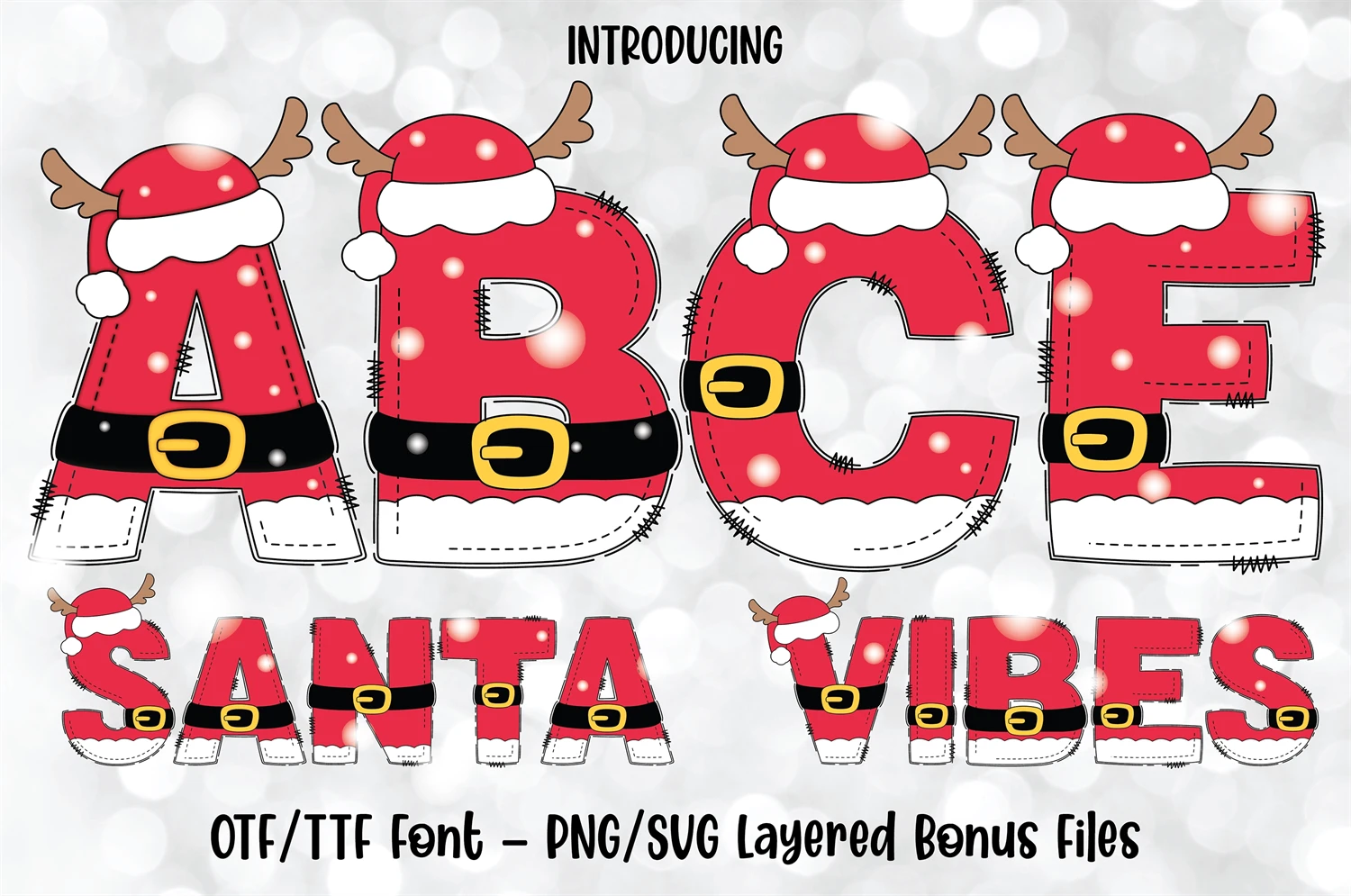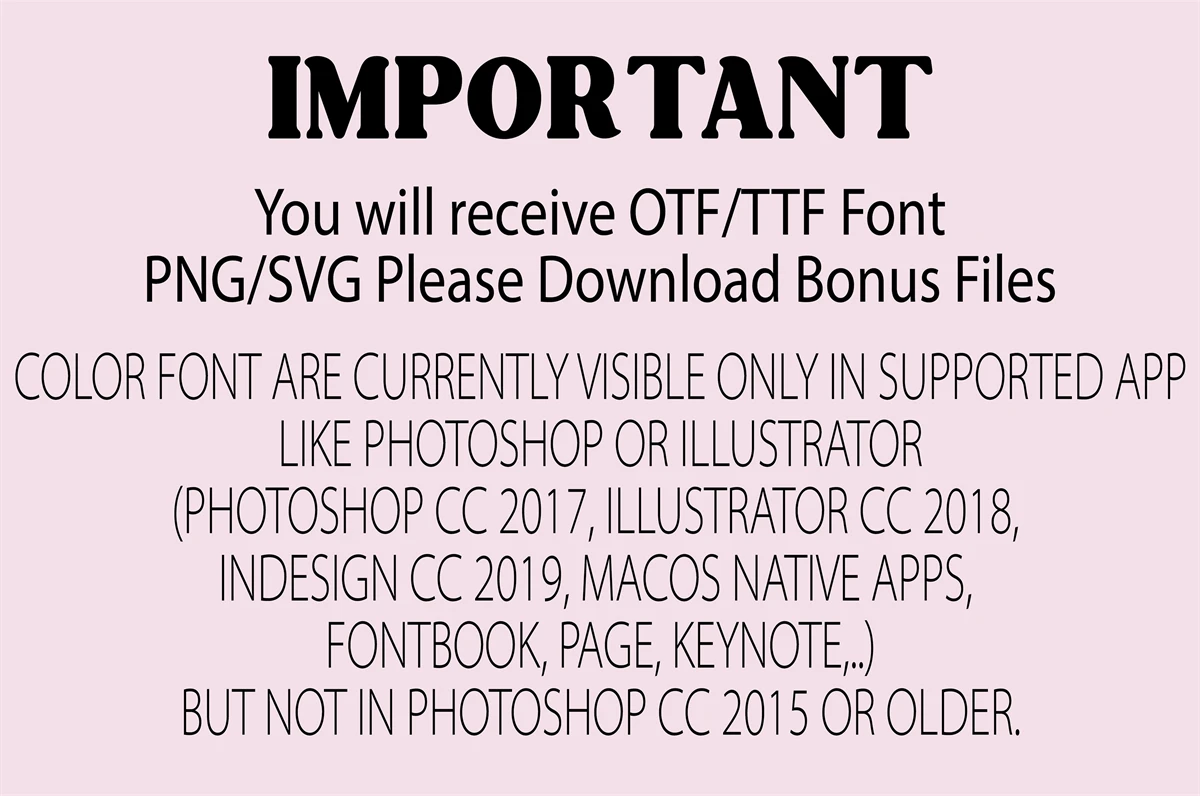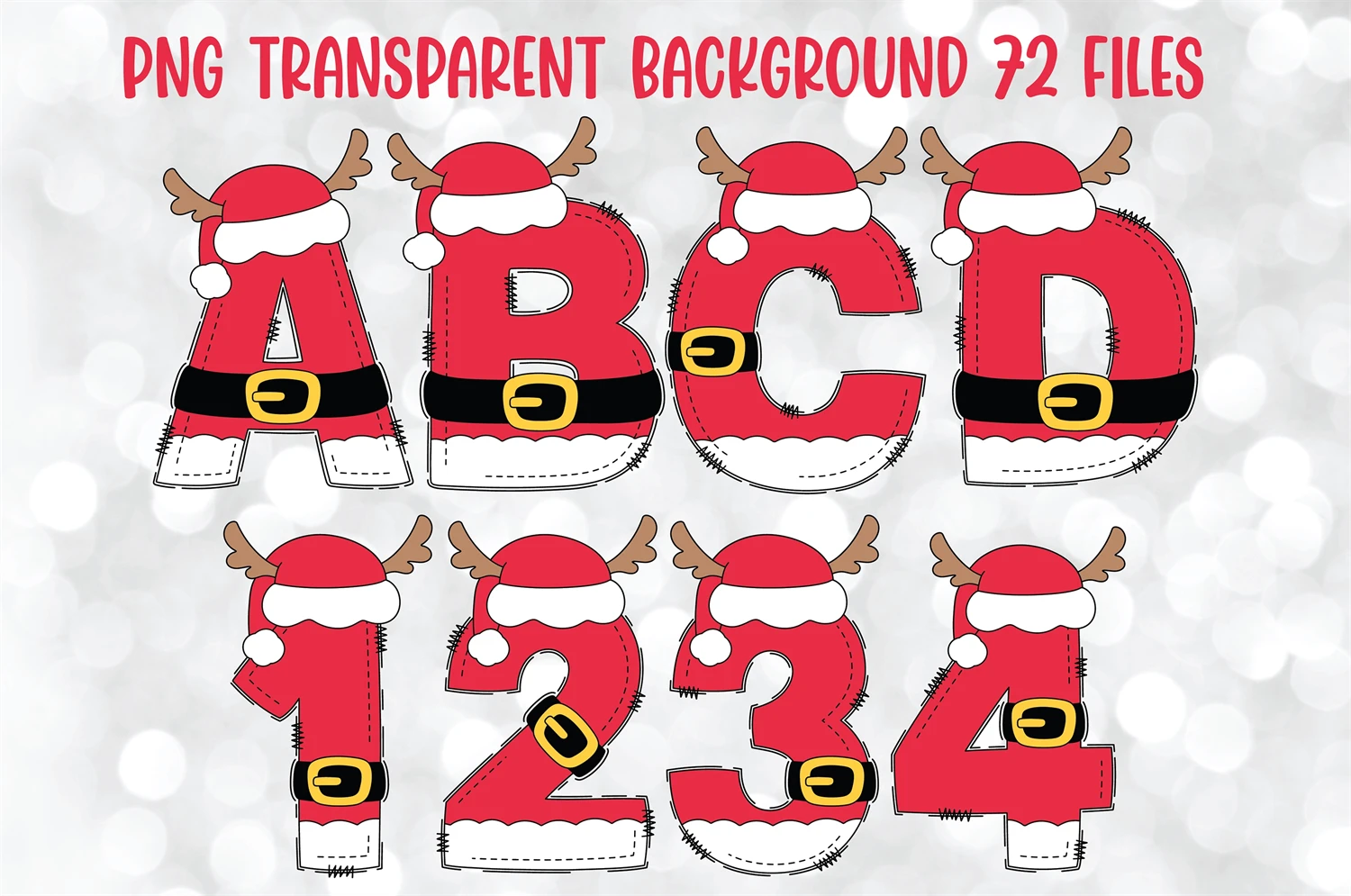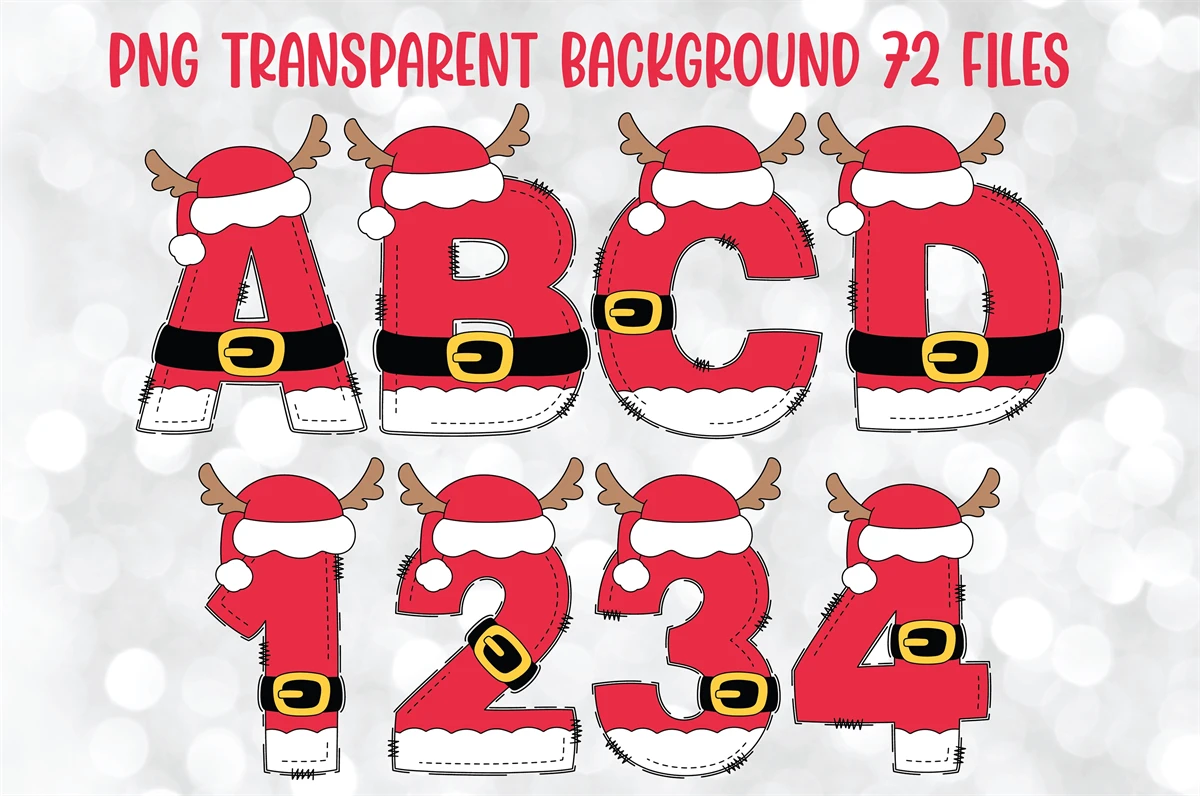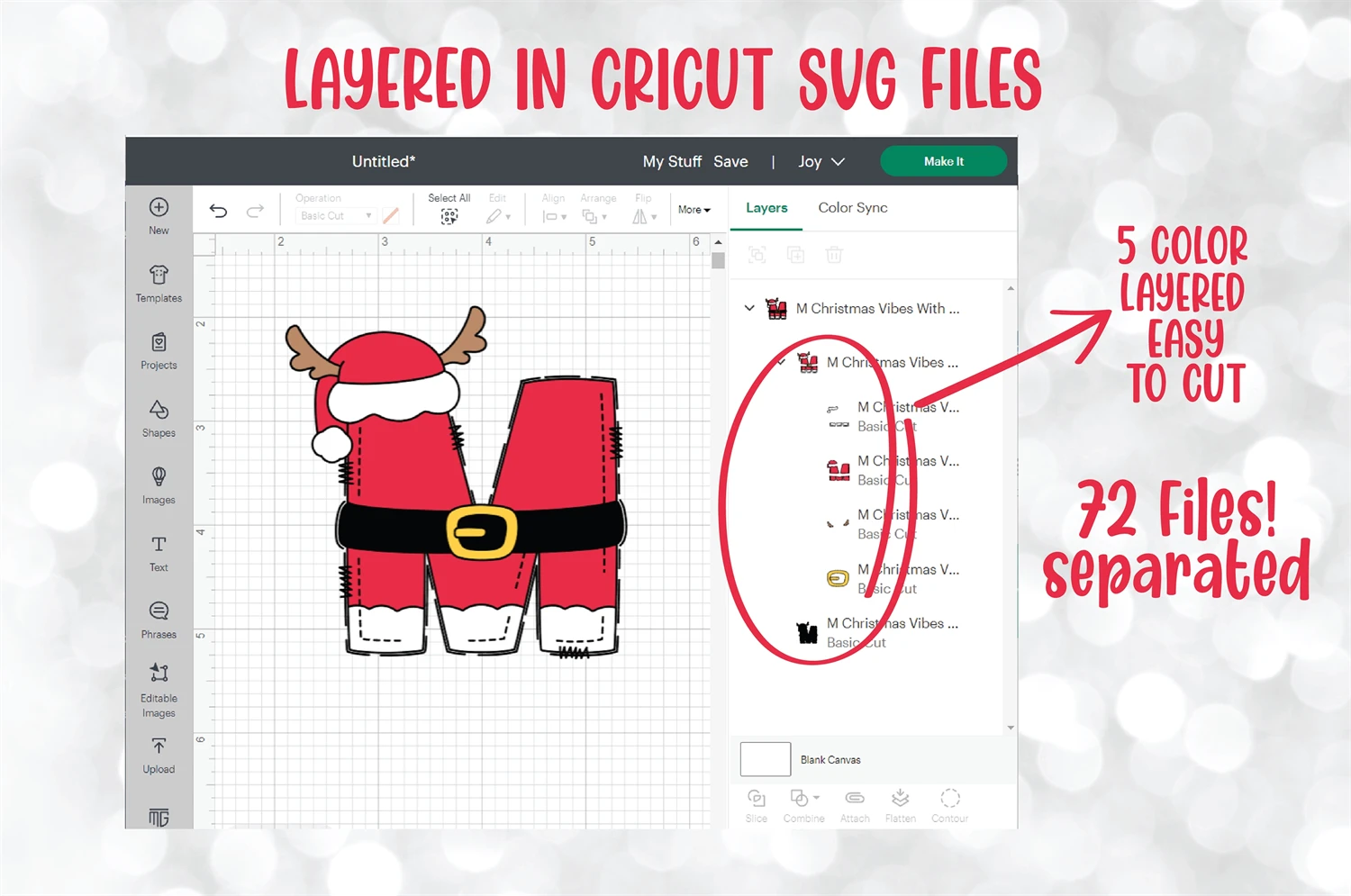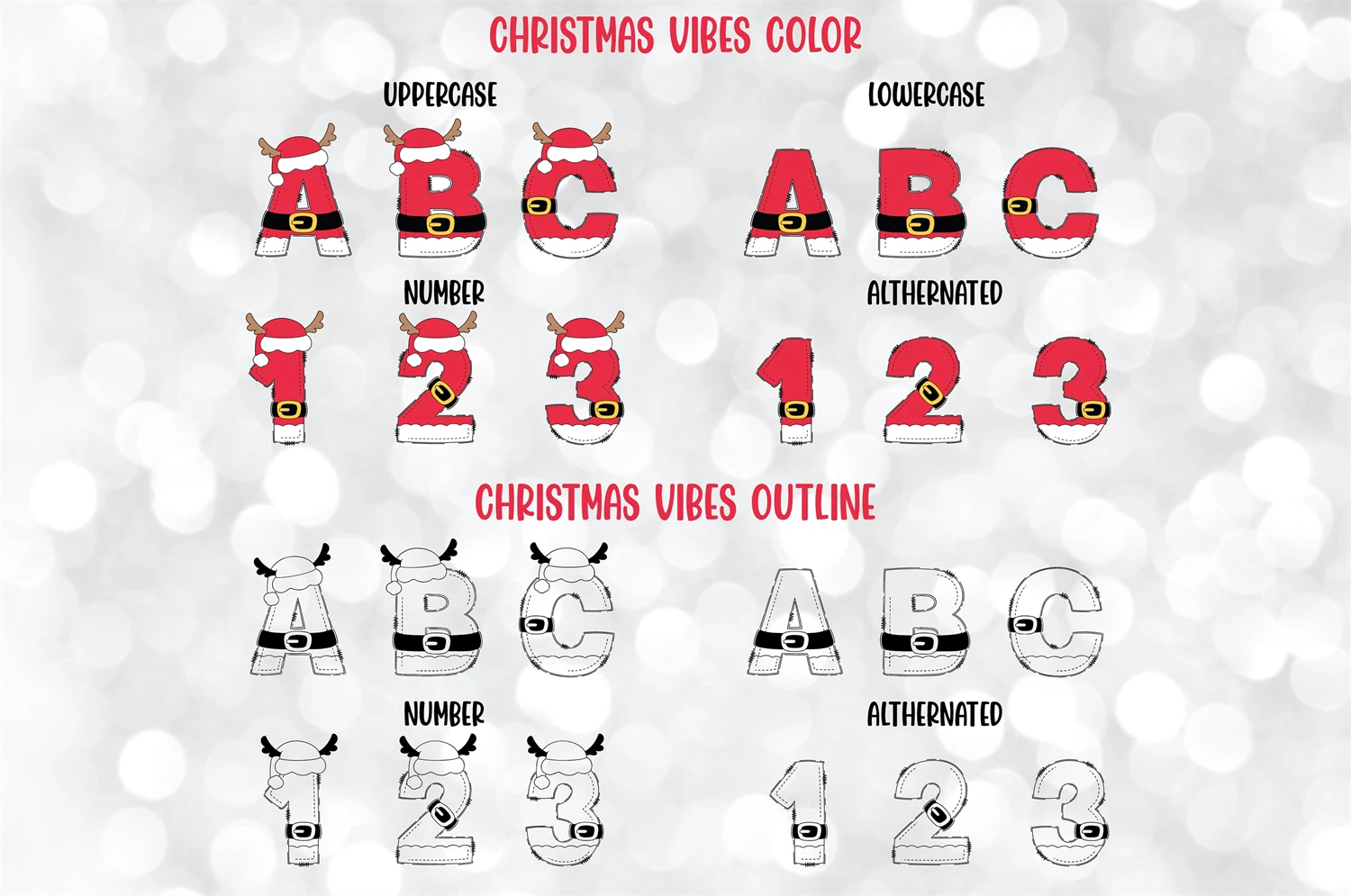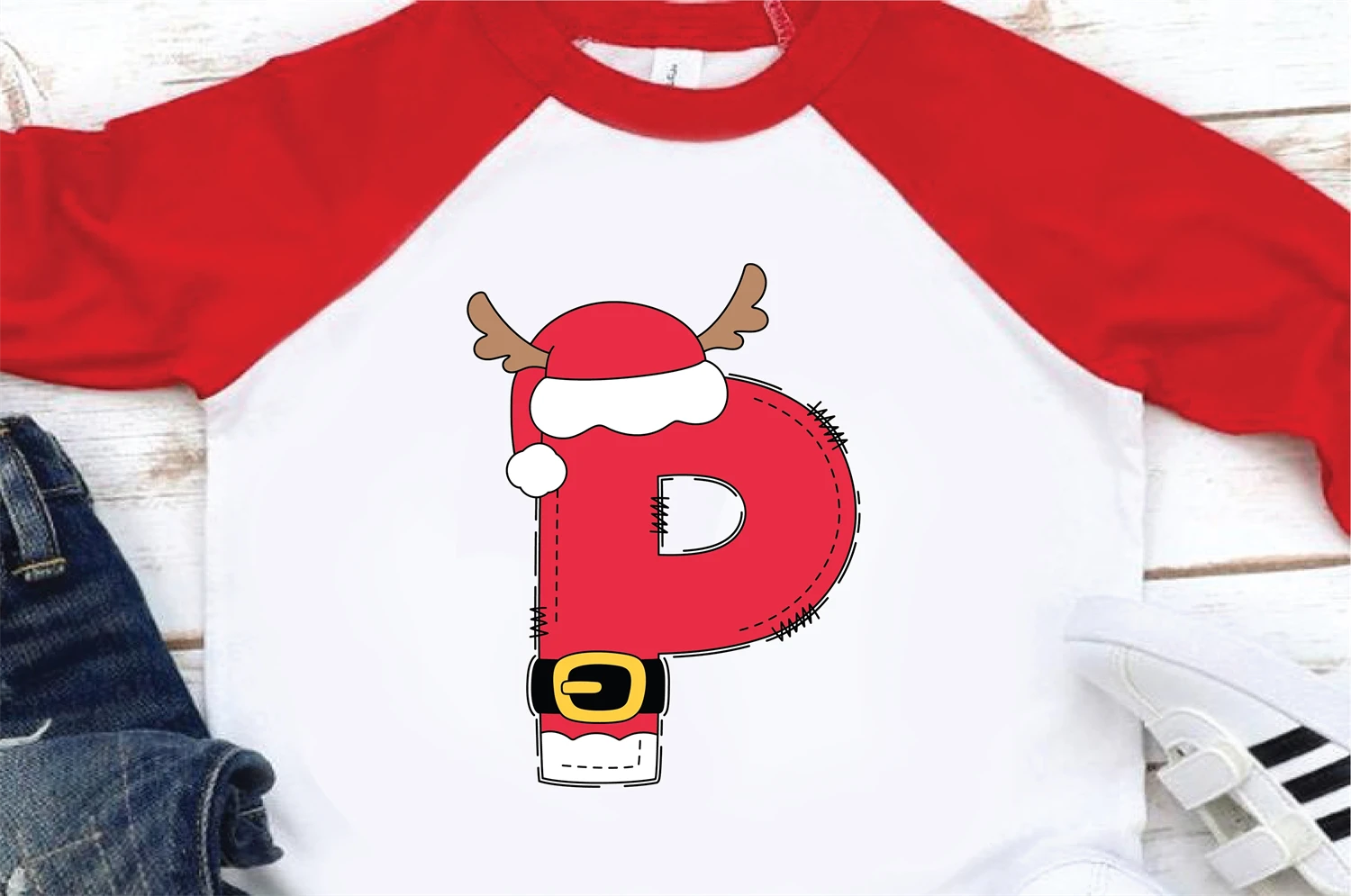
Christmas Vibes Font, PNG Alphabet Clipart, SVG Layered File
Christmas Vibes Font is very festive for christmas. You can create many fun project with this! There're come with PNG Alphabet Clipart & SVG Layered Files.